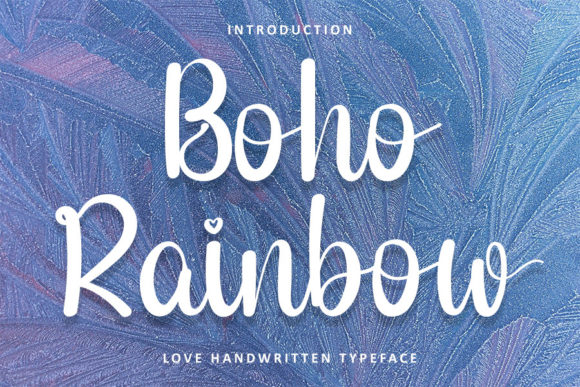
Welcome to the world of Boho Rainbow, a stunning handwritten font that captures the essence of creativity and elegance. Crafted by the talented team at Inermedia STUDIO, this font exudes a timeless charm that transcends trends and seasons.
Boho Rainbow is more than just a font; it's an expression of individuality, a way to make your mark on the world. Its captivating curves and confident strokes will leave a lasting impression, whether you're designing logos, creating social media graphics, or crafting heartfelt invitations.
Imagine the possibilities as you explore the myriad ways Boho Rainbow can elevate your designs. Its versatility knows no bounds, lending itself seamlessly to everything from personal branding and wedding invitations to product packaging and website headers. The sky's the limit with Boho Rainbow, allowing you to weave your creative magic into every project.
Dive into a world of endless inspiration as you witness Boho Rainbow transform your designs into masterpieces. Its unique style, inspired by classic calligraphy, brings a touch of sophistication and timeless elegance to every creation. Let your imagination soar as you explore the endless possibilities that await you.
With Boho Rainbow at your fingertips, you'll never have to settle for ordinary again. Its bold and confident strokes will make your designs stand out from the crowd, leaving a lasting impression that resonates with your audience.
So, embrace the beauty of Boho Rainbow and let your creativity shine. Its timeless charm and captivating style will ignite your imagination and inspire you to create designs that captivate and enchant. Experience the magic of Boho Rainbow today and see your creative vision come to life.